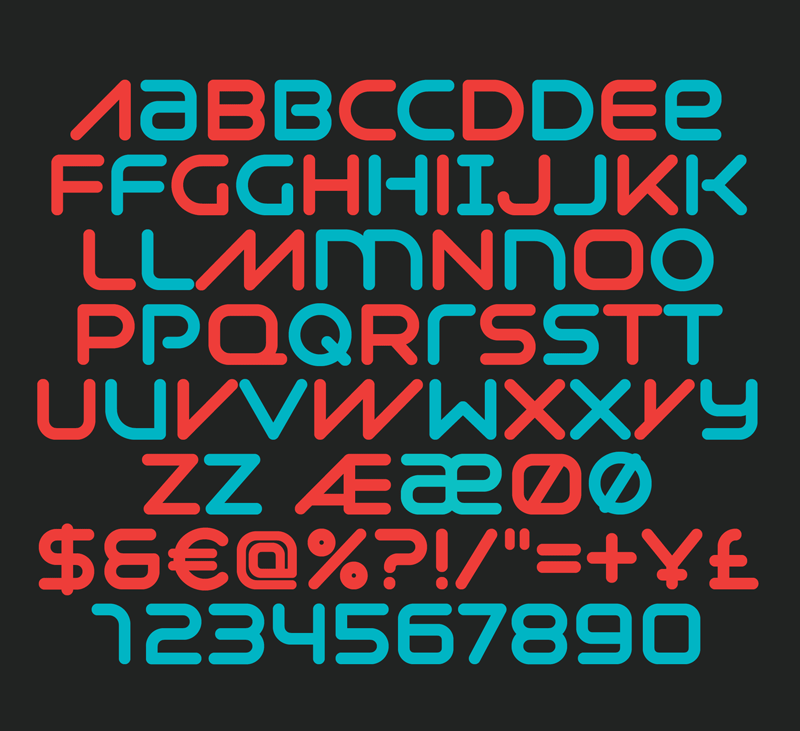
Font name: | Syntha Nova |
Author: | Neogrey Creative |
Syntha Nova is a successor of the display typeface with the same name Syntha, which I created in 2011. As its predecessor it is influenced by the electronic music culture. It builds on the foundations of the original typeface but it has been completely redrawn from scratch � and I hope it shows more maturity, better character shapes, useful alternates and а proper spacing and kerning. Being a display font it could be very useful for creating DJ, Record label or Music platform logos, party flyers and festival posters. It�s really not intended for long texts as it doesn�t have a great readability. It features two weights � Regular and Black. For personal use only! If you plan to use it commercially, please get in touch at ivan@neogrey.com. |